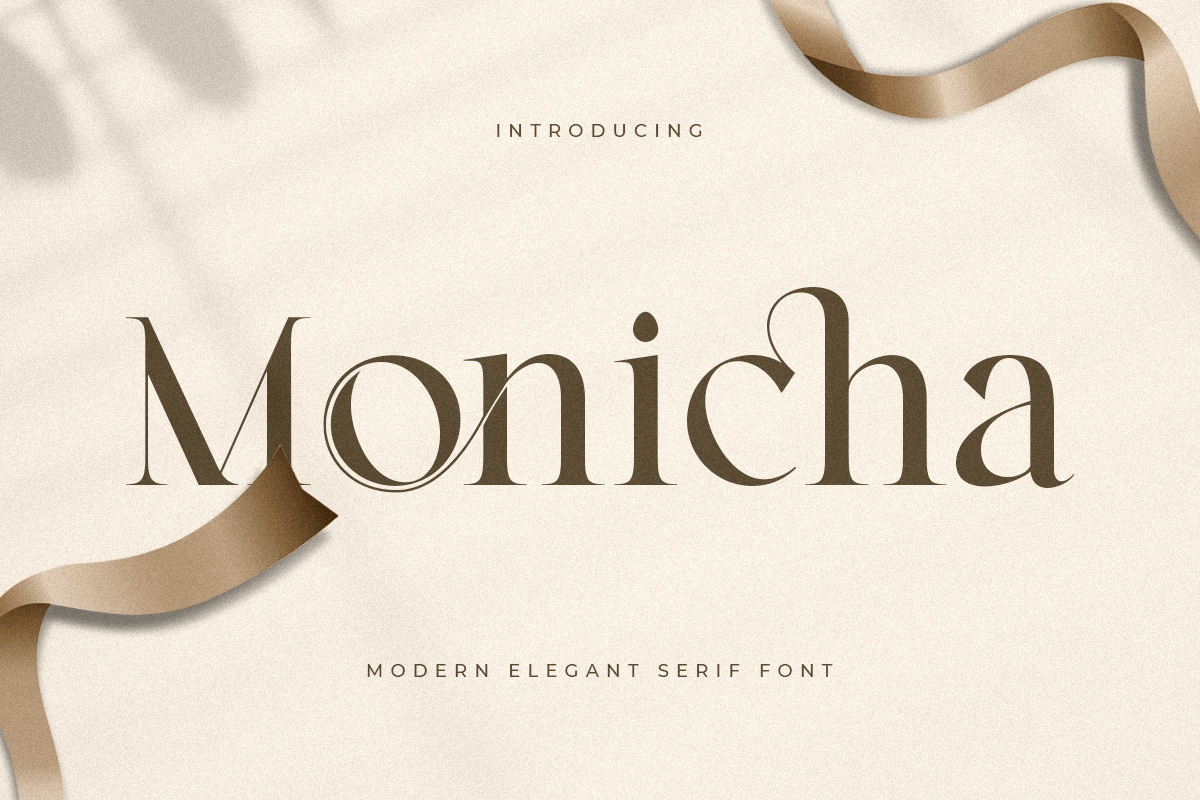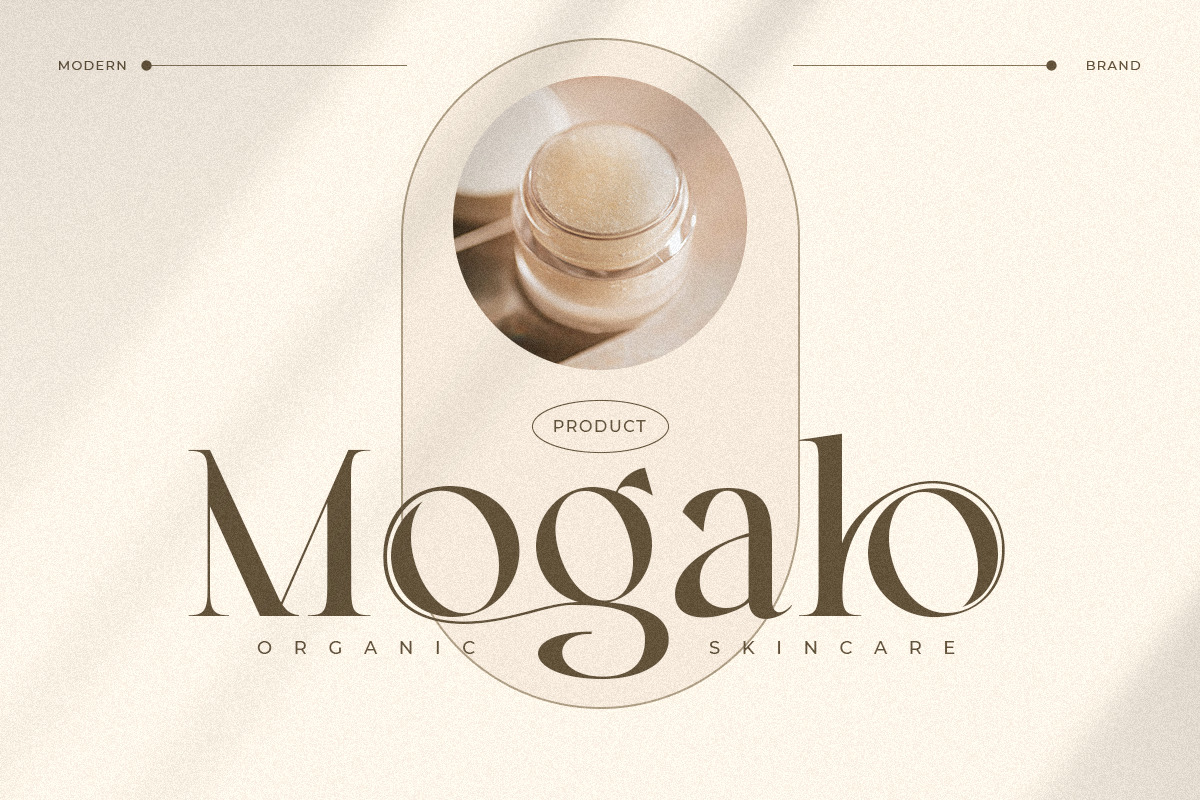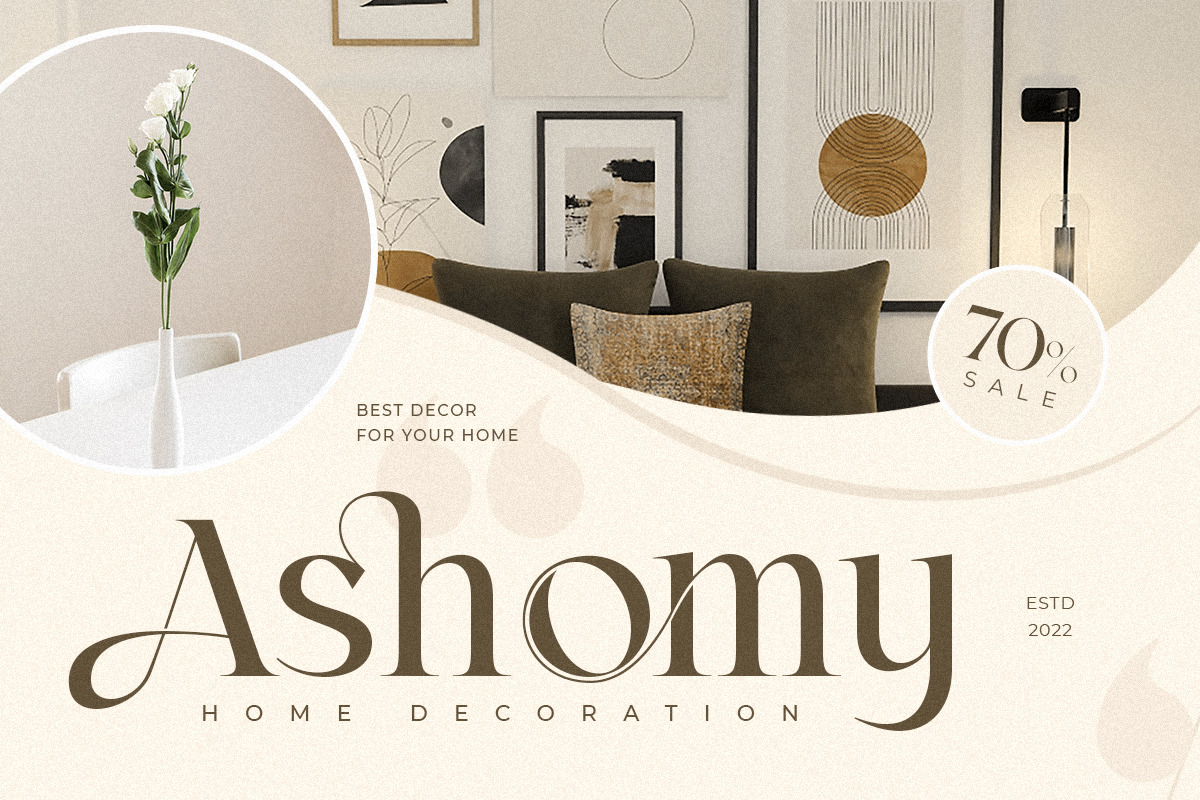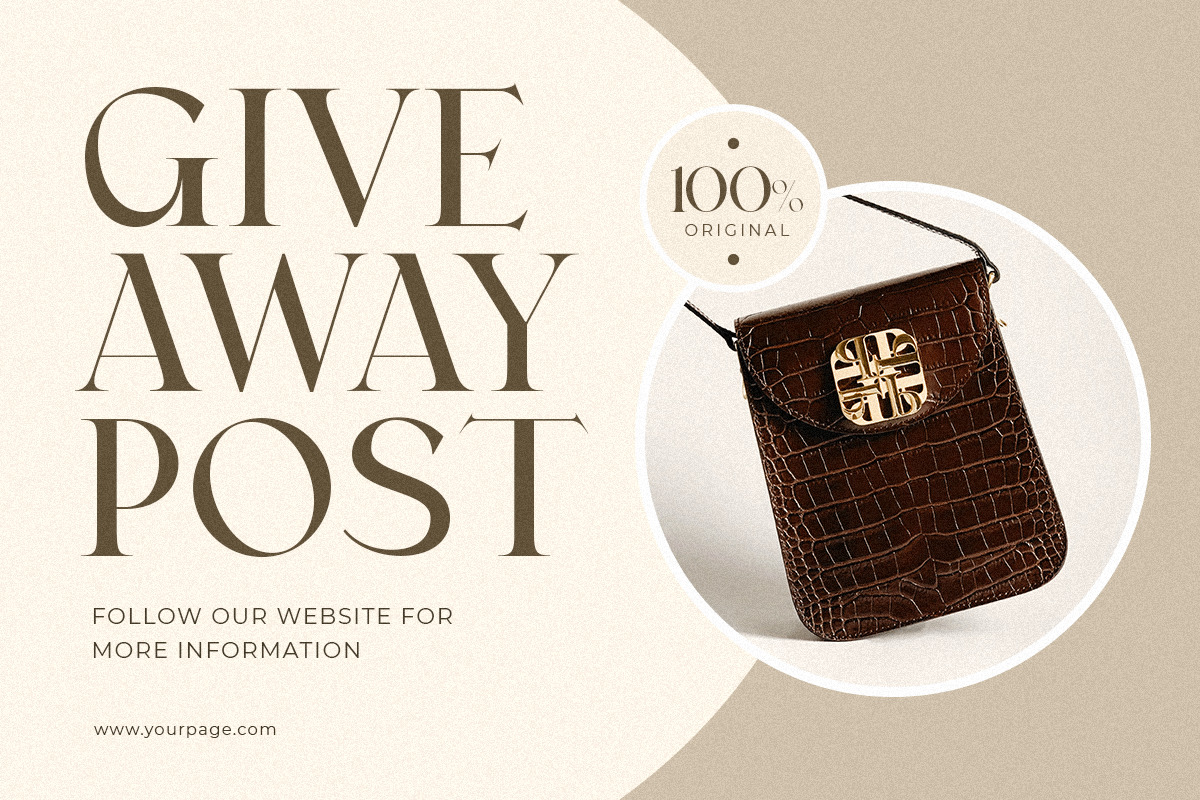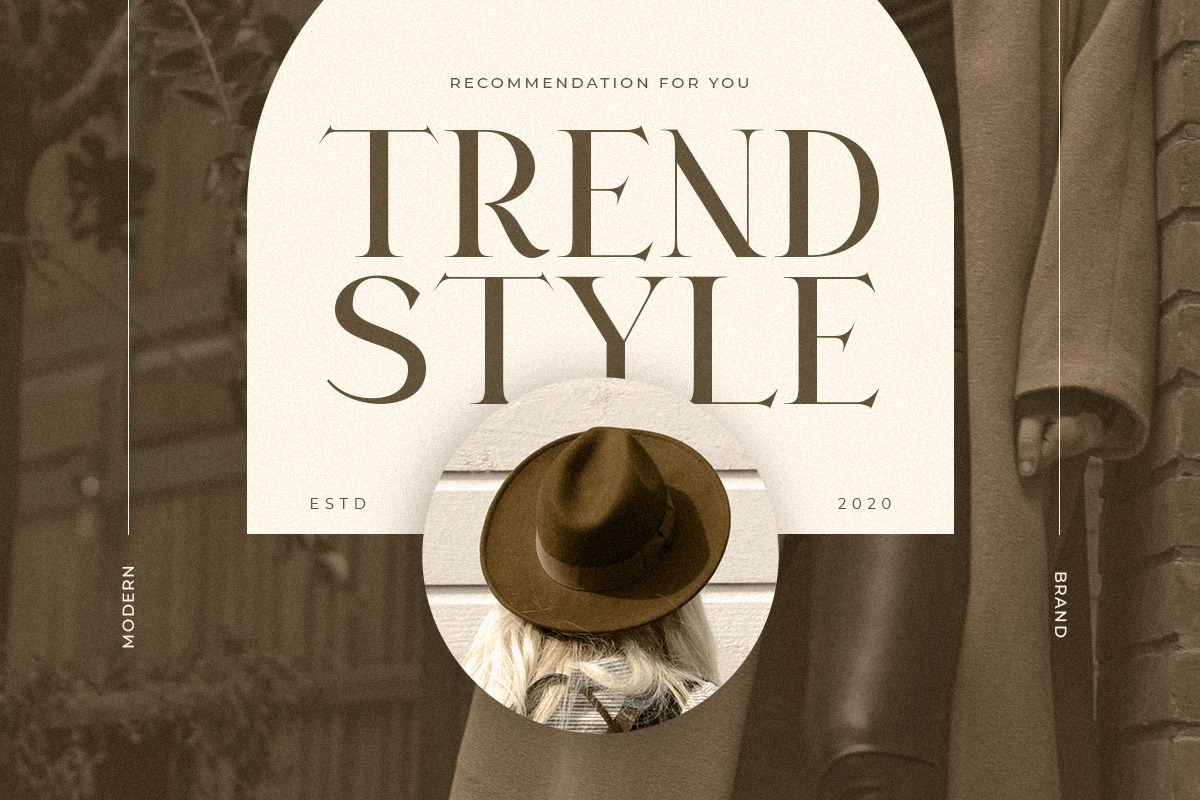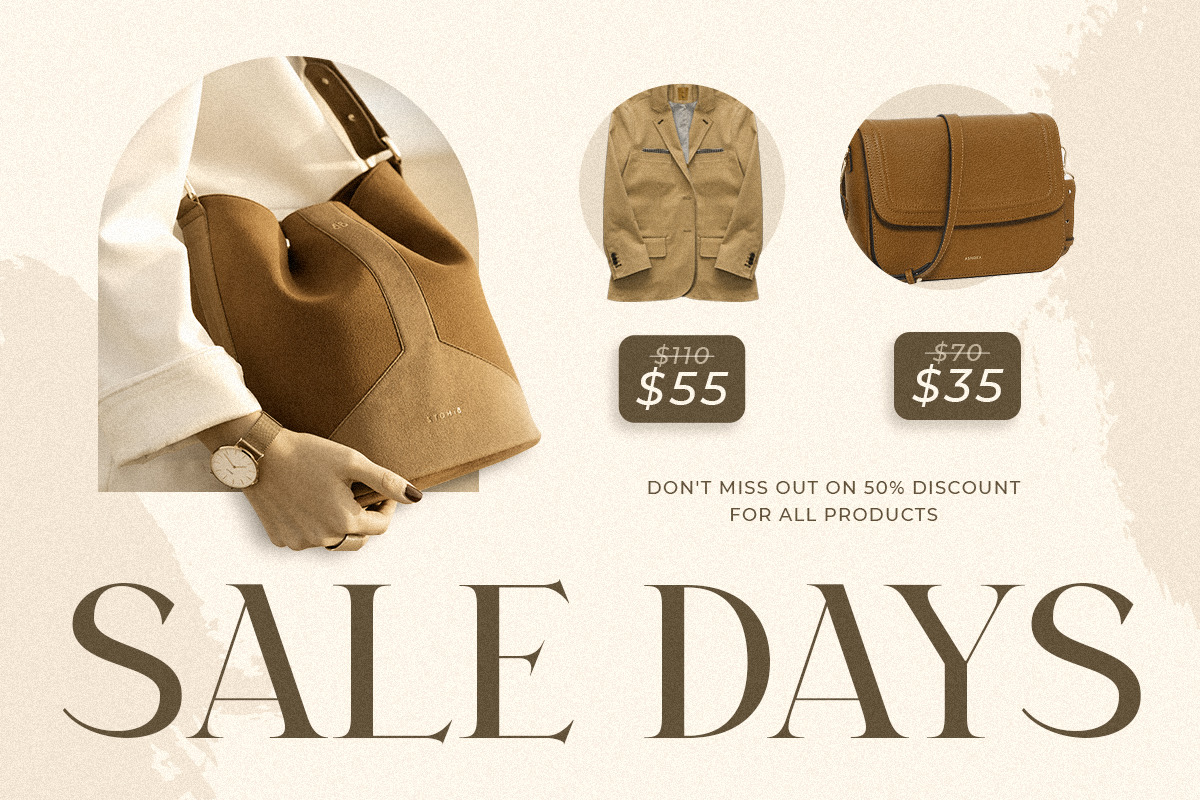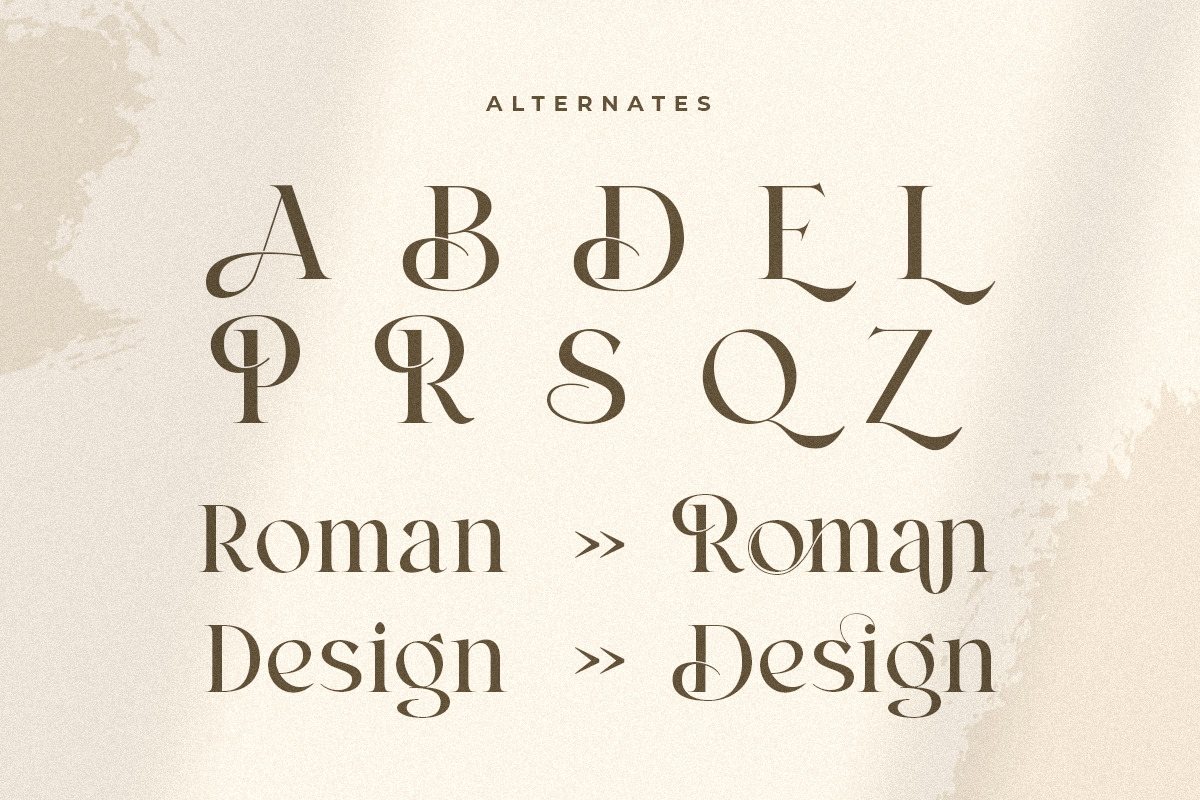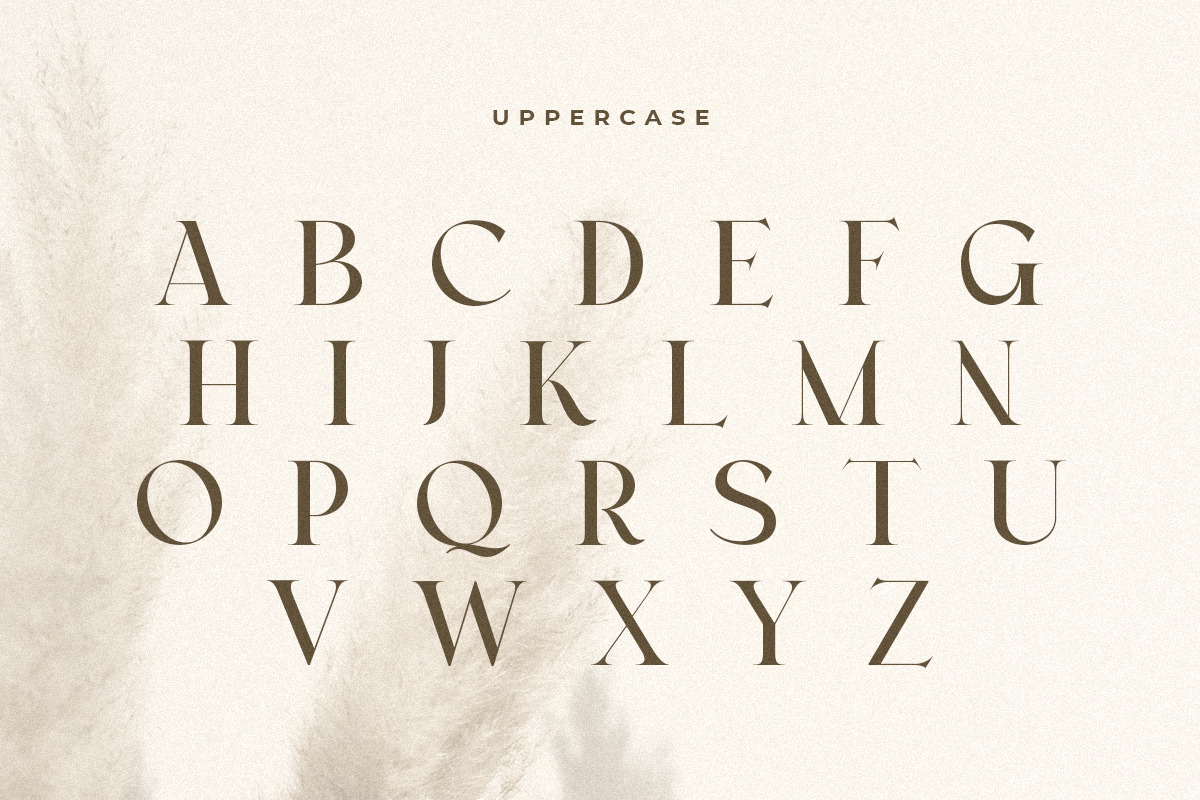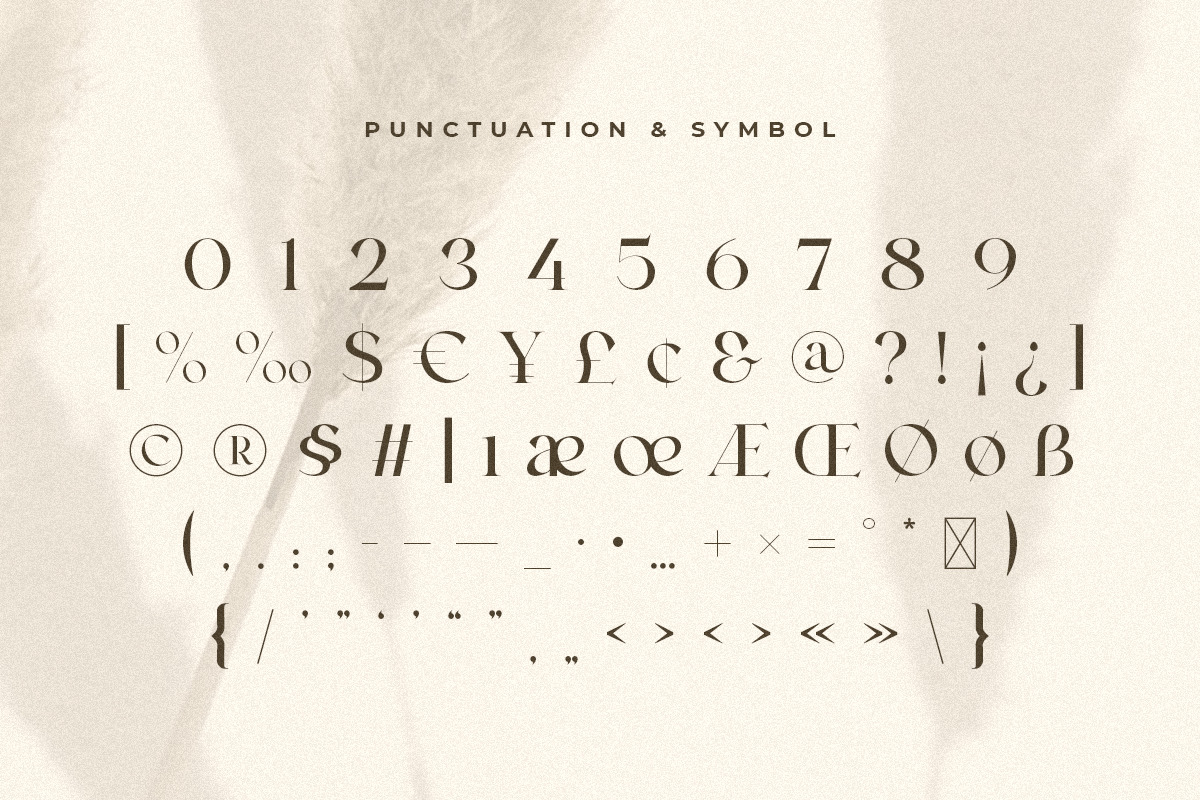
Monica - Modern Elegant Serif Font
A serif font that we created special for elegant branding needs, with extra ligature and alternates in unique shape will be ready to add value of your brand. It so nice to leverage designer or product owner that need solutions to make their design look more classy and modern. And specially for Monicha font, We prepared any ligatures, and any alternate characters to help you create unlimited variations for your creative needs.
Monicha serif font ready with:
- Any options to get creative variations (combination of Alternate and Ligatures)
- Preview as a inspirations that you can do with Monicha font
- Ready with Lowercase and Uppercase characters